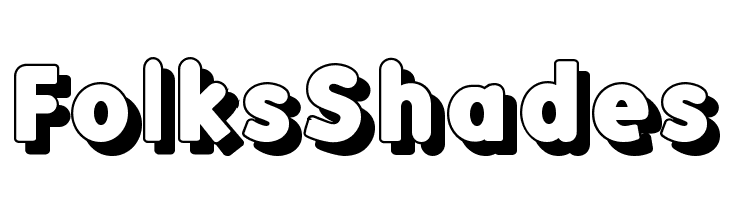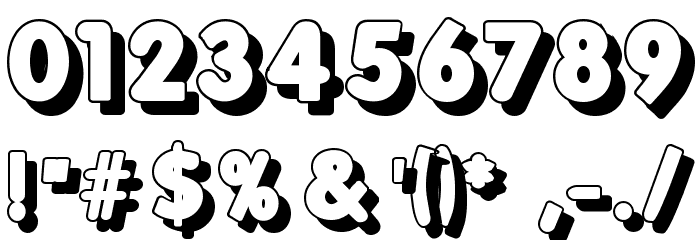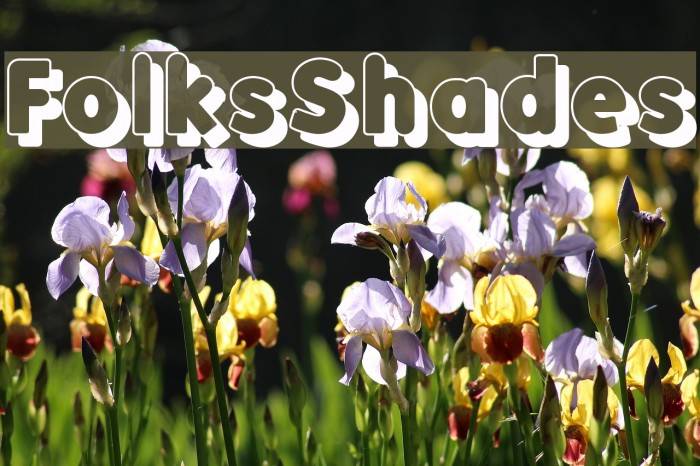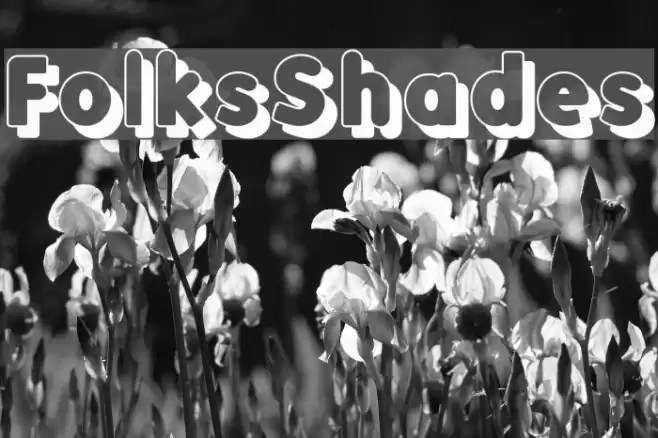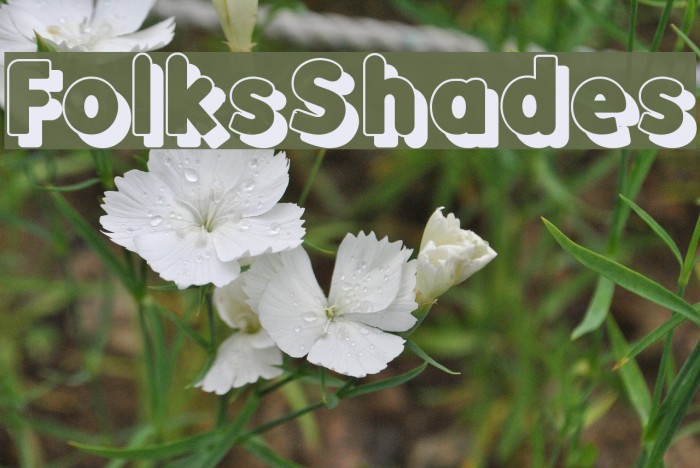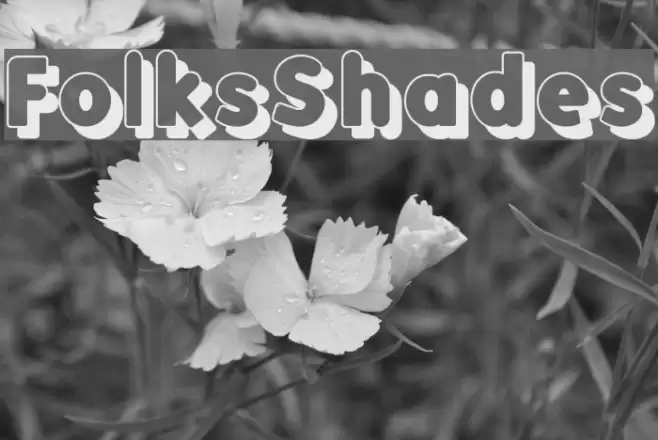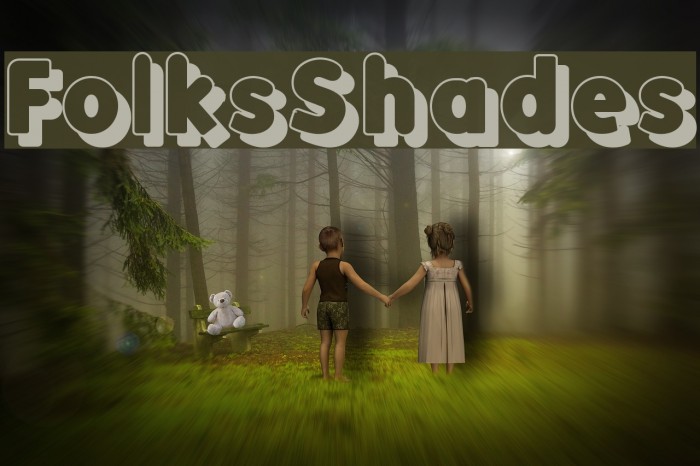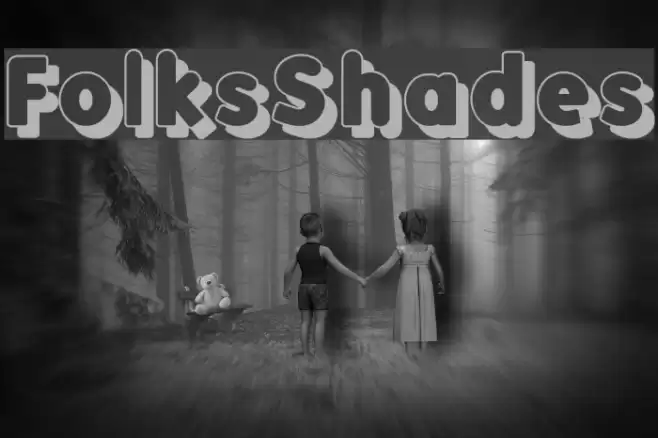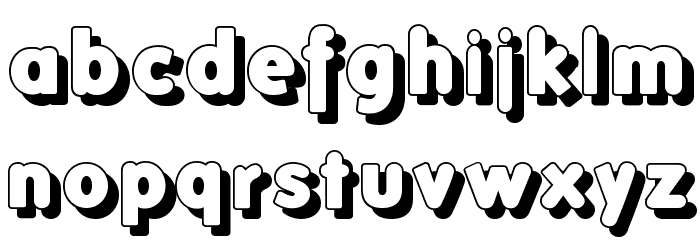
FolksShades Font
| Stil general | Playful, Fun, Dynamic |
| Proiecte propuse | Ideal for children's books, playful branding, posters, and any project needing a fun, engaging look. |